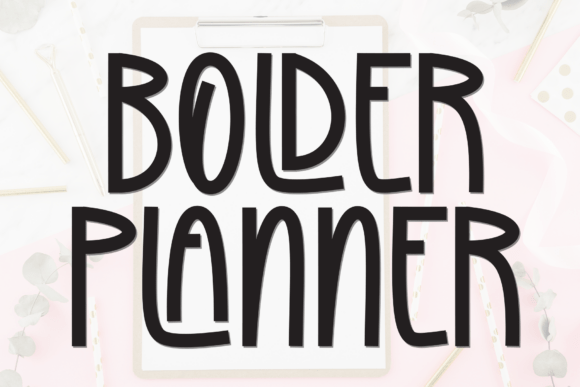
The Bolder Planner Font: A Fun and Relaxing Addition to Your Design Toolkit
I’ll never forget the summer I spent countless hours working on a beach-themed poster project, struggling to find the perfect font that captured the carefree essence of the season. My client wanted something that exuded fun, relaxation, and a dash of playfulness. That’s when I stumbled upon the Bolder Planner font, and it instantly became the star of the show! 🌞
With its clean lines, easygoing vibe, and cheerful personality, Bolder Planner brought a breezy, laid-back feel to the project that perfectly matched the client’s vision. In this article, I’ll share my experience with this fantastic font, including what I love about it, its quirks, and how to make the most of its features in popular design platforms.
An Honest Review of Bolder Planner Font
What I Love About Bolder Planner ✨
- ✅ Fun and playful vibe: Bolder Planner radiates a carefree, summery feel that’s perfect for projects that require a lighthearted touch.
- ✅ Clean and easy to read: The font’s clean lines and simple shapes make it highly legible, even at smaller sizes.
- ✅ Versatile: Bolder Planner works beautifully for posters, flyers, branding, and even social media graphics.
While Bolder Planner is an excellent font, it’s not without its limitations. Here are a few things to keep in mind:
- ⚠️ Limited formal applications: Due to its casual nature, Bolder Planner might not be the best fit for formal or professional projects that require a more serious tone.
- ⚠️ Not ideal for body text: While legible, Bolder Planner is better suited for headlines and titles rather than lengthy paragraphs of text.
Designer Inspiration: The Story Behind Bolder Planner
Bolder Planner was designed with the intention of capturing the carefree essence of summer. Its creator aimed to craft a font that would evoke feelings of relaxation and fun, perfect for designers looking to add a playful touch to their projects. While the actual design process and inspiration might be shrouded in mystery, it’s clear that Bolder Planner has become a beloved font among designers and crafters.
Q: What type of projects is Bolder Planner best suited for?
A: Bolder Planner is perfect for summer-themed posters, event flyers, playful branding, and social media graphics that require a fun and relaxed vibe.
Q: Can I use Bolder Planner in my craft projects?
A: Absolutely! Bolder Planner is a versatile font that can be used in a variety of craft projects, such as scrapbooking, card making, and DIY signs.